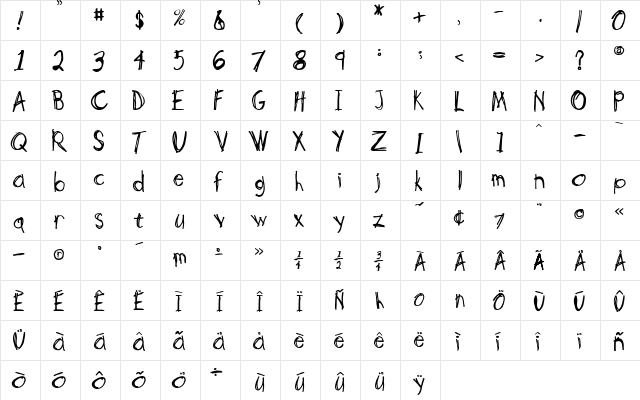
Scotty NormalA
Design Context for Scotty Typeface
Scotty is a composed and adaptable typeface that performs quietly and consistently across a wide range of design contexts.